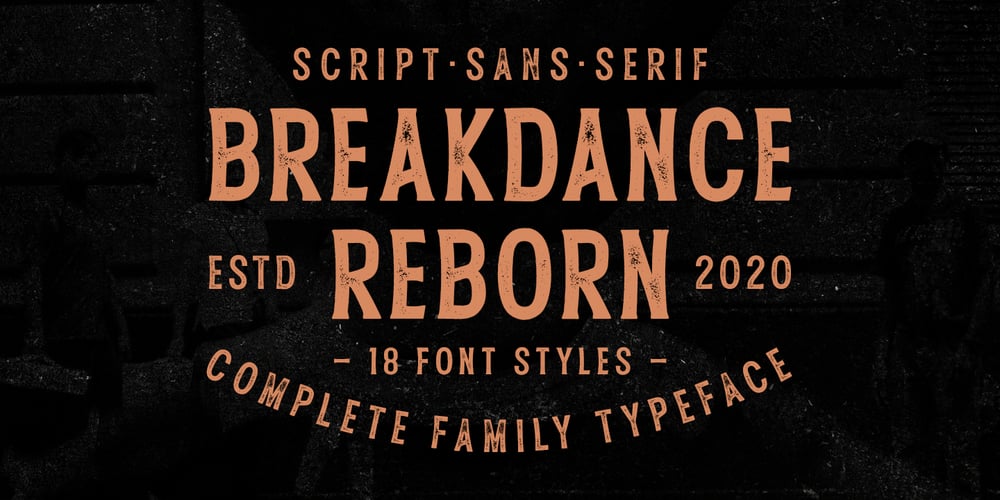
Breakdance Reborn
Breakdance Reborn font
Breakdance Reborn Font Family was designed by Bagas Ardiatma and published by Trustha. Breakdance Reborn contains 18 styles and family package options. Breakdance is inspired by dance moves, the first font created with this concept is sans serif with a curved shape in one direction. Curves are made not too extreme, so that they maintain the shape balance. And now Breakdance comes in several styles and is divided into three typesface, namely script, sans and serif. Each typeface has several different styles and the total is 18 fonts.